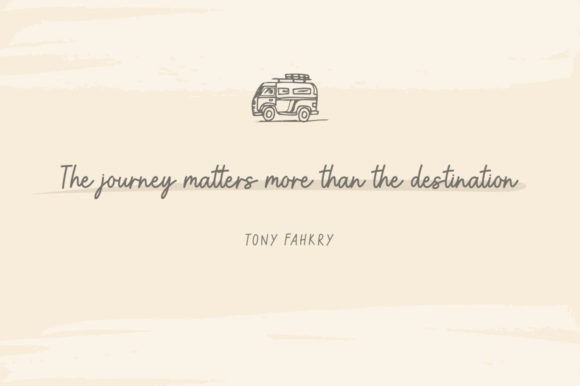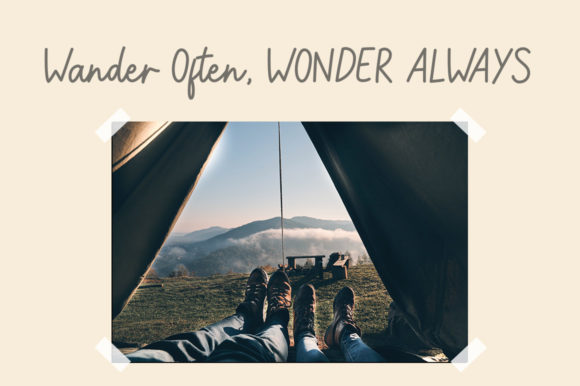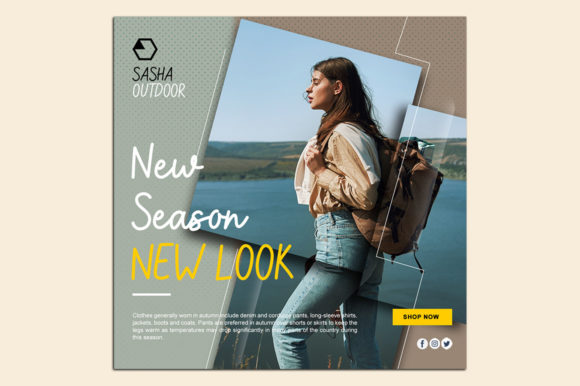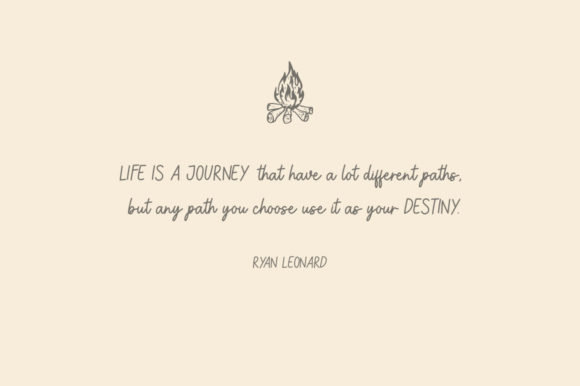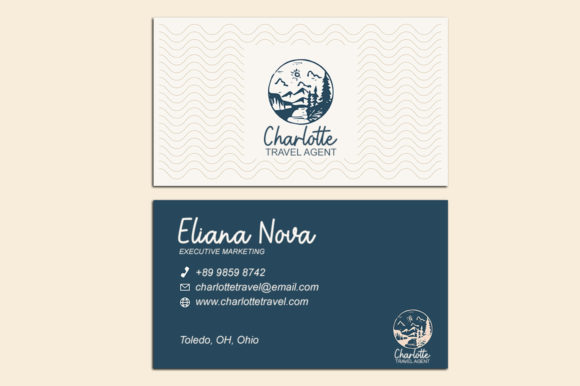
Unleashing Creativity: The Magic of Adventure Await Font
Do you remember the thrill of scribbling down your wildest ideas on a chalkboard as a child? The tactile sensation of the chalk gliding across the surface, the excitement of bringing your imagination to life? For designers and educators alike, capturing that same sense of adventure and whimsy in their work is a constant challenge.
Enter the Adventure Await Font, a charming and versatile handwritten font that brings a touch of authenticity to any design. Perfect for chalkboard quotes, teaching materials, and more, this font’s unique look and feel will transport your audience back to a simpler time. With its personal and realistic charm, the Adventure Await Font is a valuable addition to any designer’s toolkit, allowing them to add a touch of magic to their creations.
- Unique Characteristics: Features a dynamic, hand-drawn feel with subtle flair and texture, perfect for creating engaging, story-driven content
Design Review: Adventure Await Font
I recently had the chance to work with the “Adventure Await Font” and I must say it’s an interesting mix of styles. ✨ The font’s unique blend of cursive and script elements adds a touch of elegance and sophistication to any design.
- The font’s varied line weights and flourishes make it a great choice for headings and titles.
- The cursive elements add a sense of movement and energy, perfect for designs that need to convey a sense of adventure or excitement.
- The font is highly legible, even at smaller sizes, making it a great choice for body text.
However, there are a few limitations to consider ⚠️:
- The font’s more ornate elements can be overwhelming if used too extensively.
- The font may not be the best choice for designs that require a clean and minimalist aesthetic.
- The font’s variability in line weights can make it difficult to achieve a consistent look across different elements.
Overall, I’d say the “Adventure Await Font” is a solid choice for designs that need a touch of elegance and sophistication. While it may not be the best fit for every project, it’s definitely worth considering for the right type of design.
The Adventure Awaits font is perfect for travel or outdoor-related projects, such as brochures, posters, or websites. It’s also great for creating a sense of excitement or adventure in marketing materials, social media posts, or blog articles. Use it to add a touch of whimsy or playfulness to your designs.